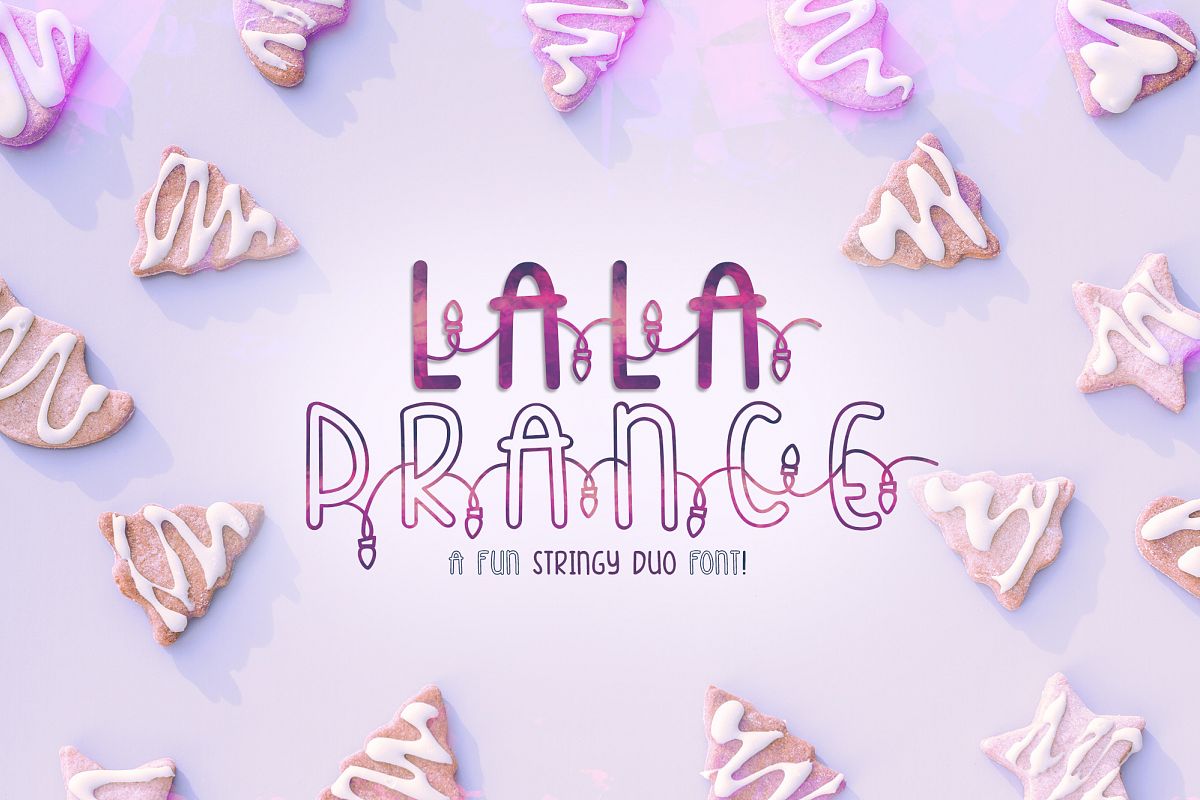
Lala Prance | A fun stringy duo font | Lighted Font
Here is a fun any lighted occasion font! <3 With solid and outlined as caps and lower case.
Lala Prance | A fun stringy duo font | Lighted Font